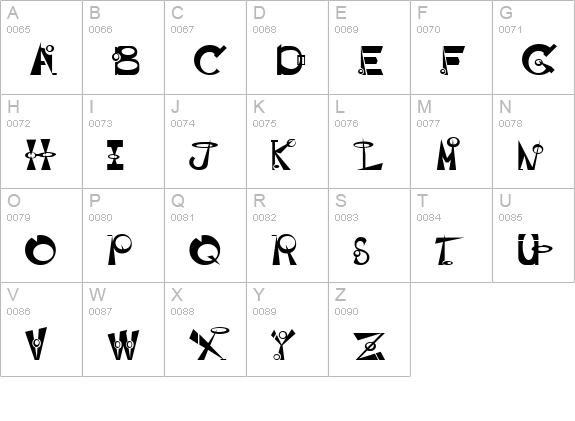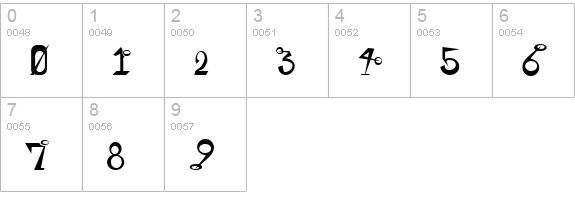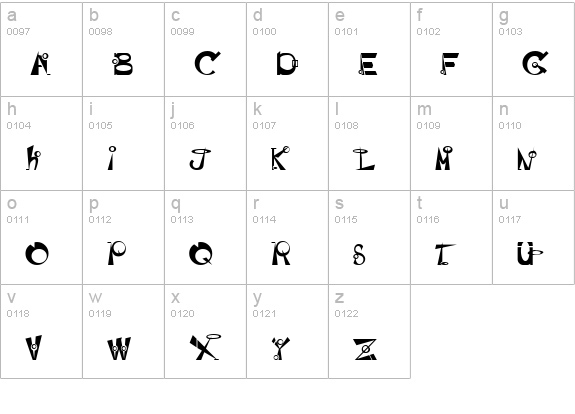
BASEHEAD Font Details
Introducing BASEHEAD font, a bold and dynamic typeface that exudes modernity and creativity. This unique font is perfect for making a statement in your designs, whether for branding, advertising, or any creative project. With its edgy and eye-catching style, BASEHEAD font is sure to grab attention and leave a lasting impression. What sets BASEHEAD font apart is not only its striking appearance, but also the fact that it is completely free to use. Yes, you read that right - this amazing font is freely available to download at FontsMarket.com. Now you can add a touch of boldness and originality to your designs without breaking the bank. Don't miss out on the opportunity to enhance your projects with the distinctive look of BASEHEAD font. Download it for free today and let your creativity shine!